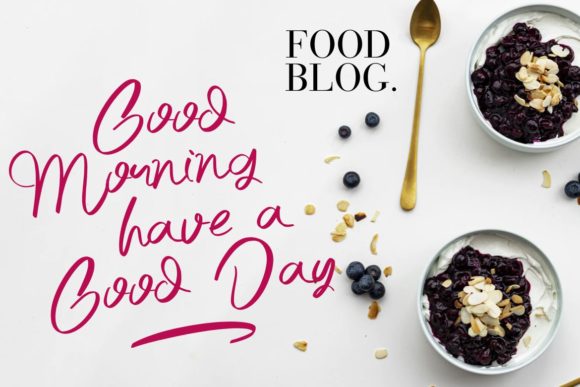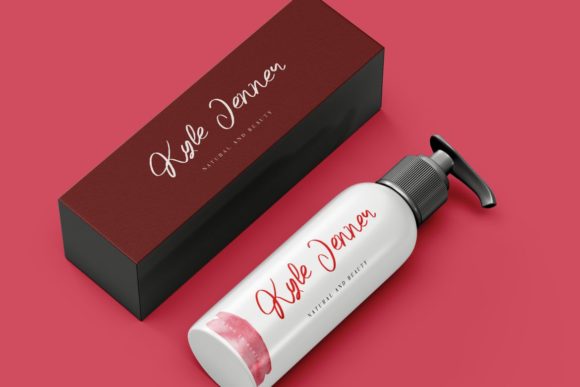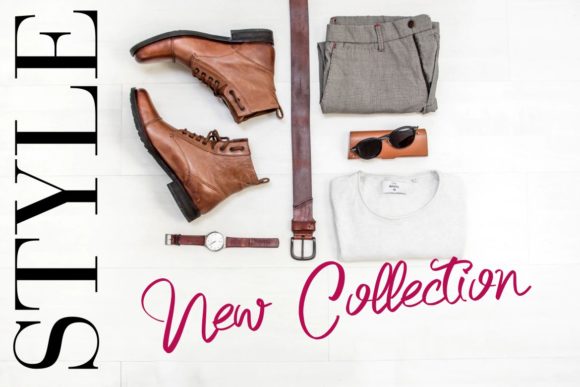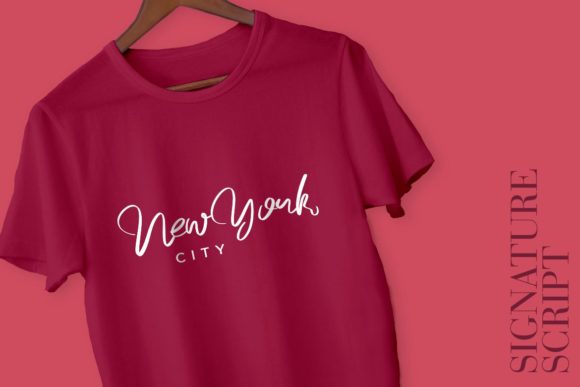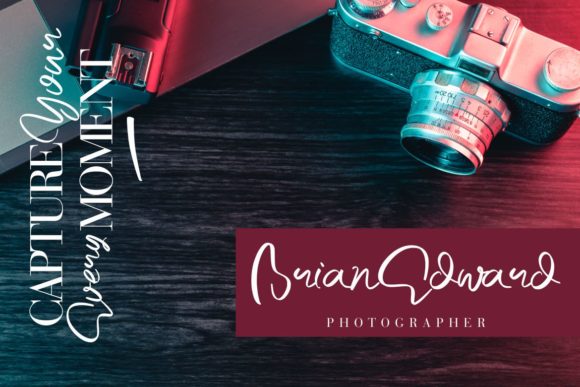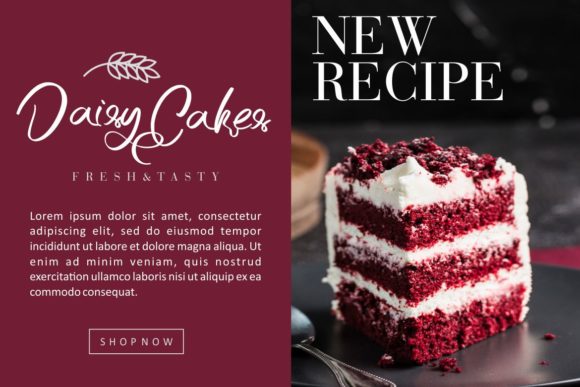
The Perfect Touch for Your Crafting Projects
Do you ever find yourself rummaging through your craft stash, searching for the perfect font to add a personal touch to your handmade creations? I know I do! There’s something special about seeing a beautiful, handwritten font come to life on a card, a sign, or a piece of artwork. It’s like adding a sprinkle of magic to your project, making it truly one-of-a-kind.
That’s where the Cottage Font comes in – a fun and sweet handwritten font that’s sure to add a romantic style to any crafting project. Whether you’re a seasoned crafter or just starting out, this font is a valuable addition to your design toolkit. With its whimsical charm and effortless elegance, the Cottage Font is perfect for adding a personal touch to your handmade creations.
Cottage Font Key Features
- Font Family: Cottage is a script font family designed to evoke a sense of warmth and nostalgia.
- Unique Characteristics: Cottage Font features a unique, hand-drawn style with subtle imperfections, giving it a personal and charming feel.
Cottage Font Review
I recently had the chance to work with the Cottage Font, and I must say it’s a charming addition to any design project. Here’s my honest review.
- The Cottage Font has a lovely, whimsical feel to it that’s perfect for designs that need a touch of warmth and personality.
- The font’s brushstrokes are smooth and even, making it easy to read and use in both digital and print formats.
- The font family includes a range of weights and styles, giving you plenty of options for customizing your design.
- The Cottage Font may not be the best choice for designs that require a lot of fine detail or complex typography.
- The font’s cursive nature can make it difficult to read at very small sizes or in low-resolution environments.
- The font family is relatively small compared to other popular font collections.
The Cottage Font is a delightful addition to any design project that needs a touch of warmth and personality. While it may have some limitations, it’s a great choice for designs that require a more whimsical or hand-drawn feel. With a little creativity and experimentation, you can create some truly beautiful and unique designs with the Cottage Font.
Getting the Most Out of Cottage Font
To get the most out of Cottage Font, use it for designs that require a whimsical and vintage touch, such as invitations, greeting cards, and home decor items. Experiment with different font sizes, colors, and styles to create unique and eye-catching designs.
Cottage Font is commonly used for:
- Invitations and greeting cards
- Home decor items, such as labels and signage
- Wedding stationery and decor
- Children’s party decorations and invitations
Alternatives to Cottage Font for Designers
Pacifico is a beautiful, elegant script font perfect for creating a warm and inviting atmosphere. It’s ideal for use in branding, wedding invitations, and other design projects where a touch of sophistication is needed. Compared to Cottage Font, Pacifico has a more refined and classic feel, making it a great choice for designers who want to convey a sense of luxury and elegance.
Great Vibes is a modern, handwritten font that exudes a carefree and bohemian vibe. It’s perfect for use in designs that require a touch of whimsy and playfulness, such as music festivals, art exhibitions, or fashion brands. Compared to Cottage Font, Great Vibes has a more casual and laid-back feel, making it a great choice for designers who want to create a fun and relaxed atmosphere.